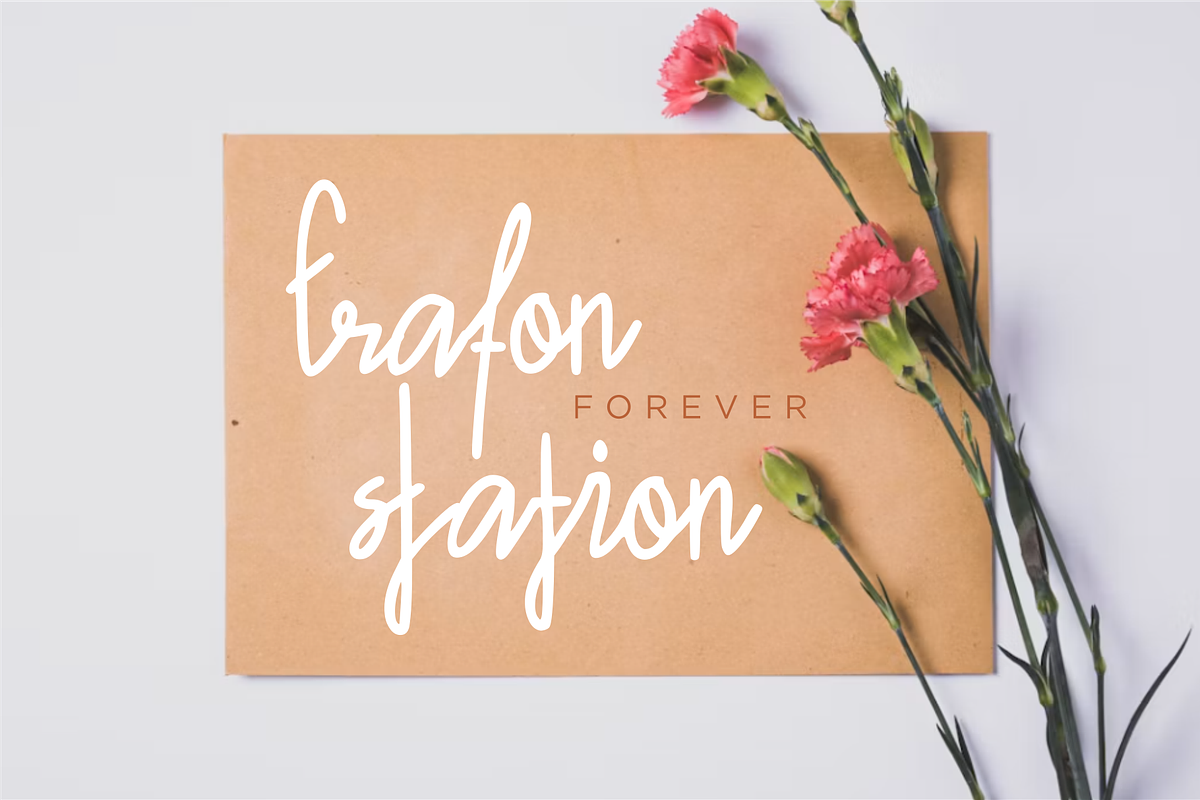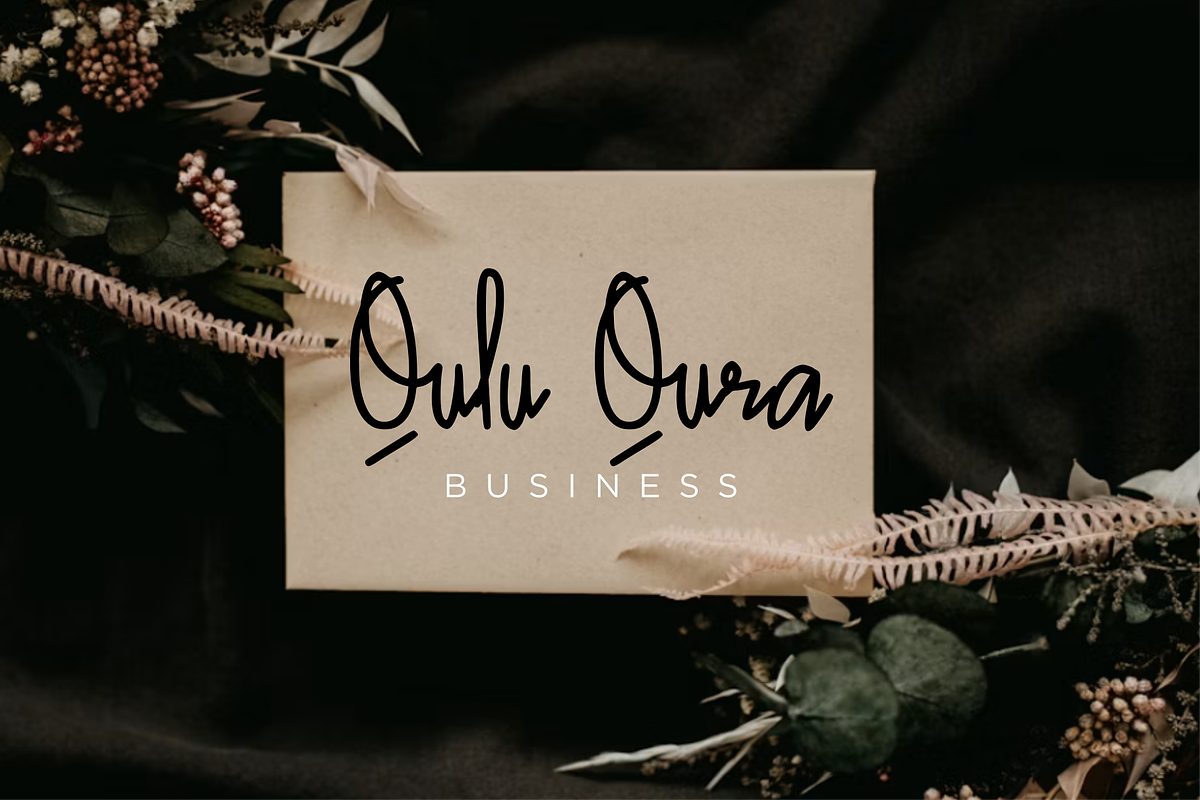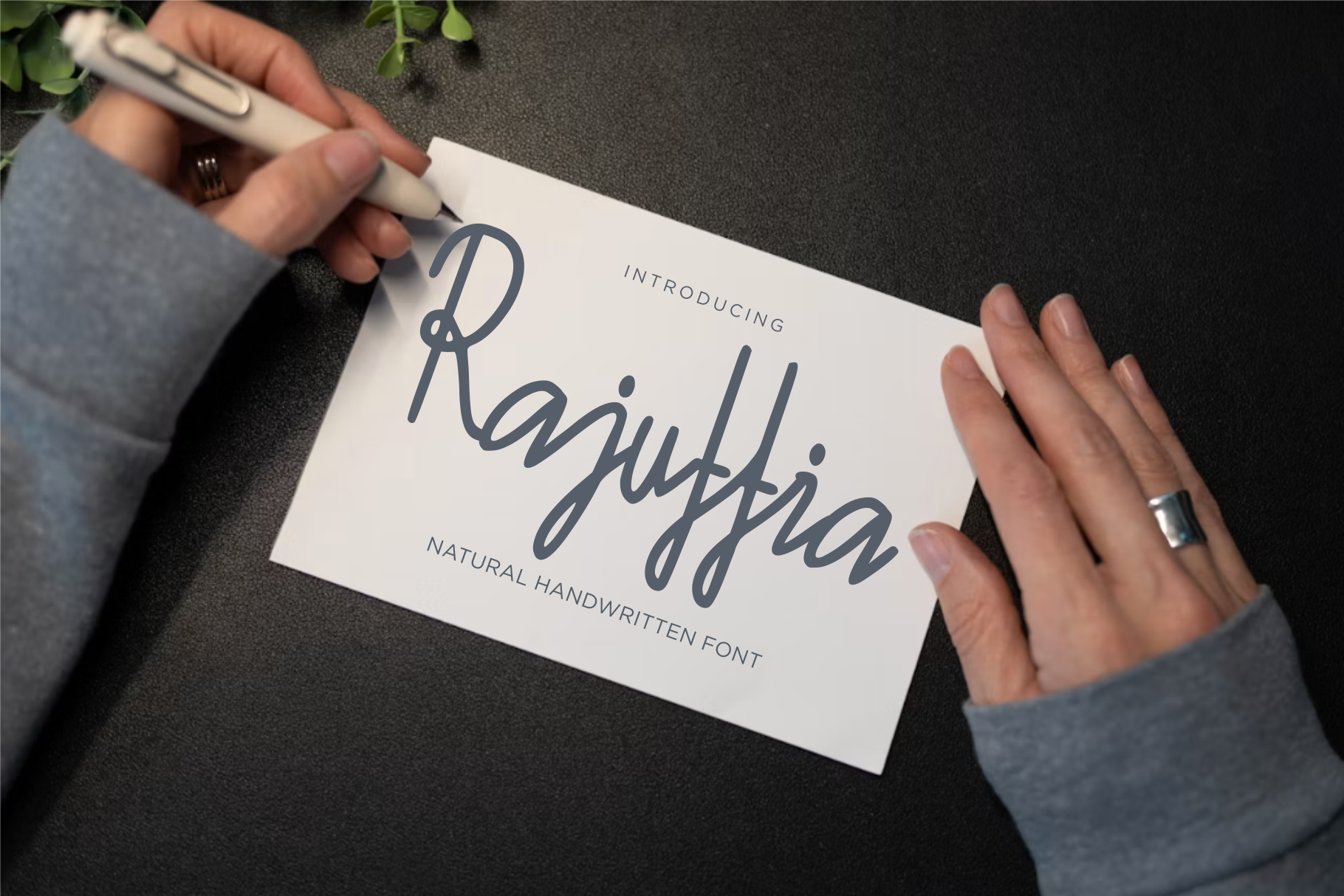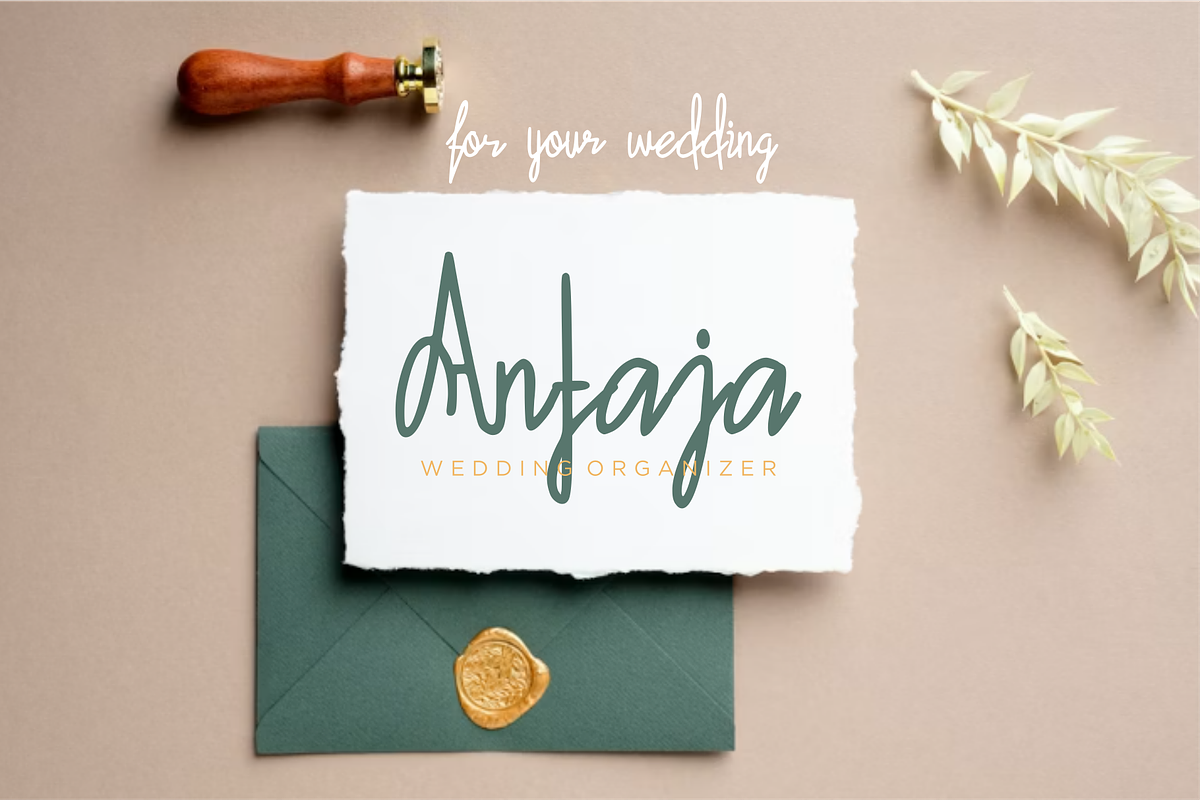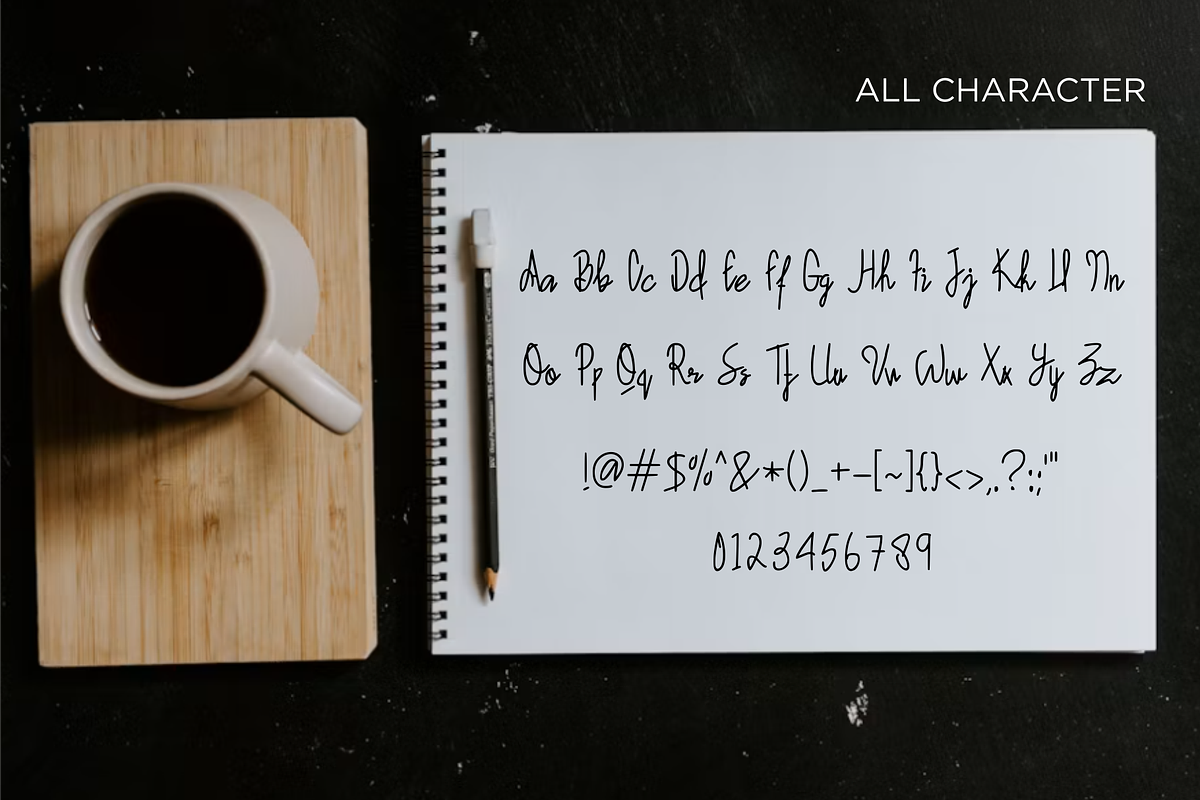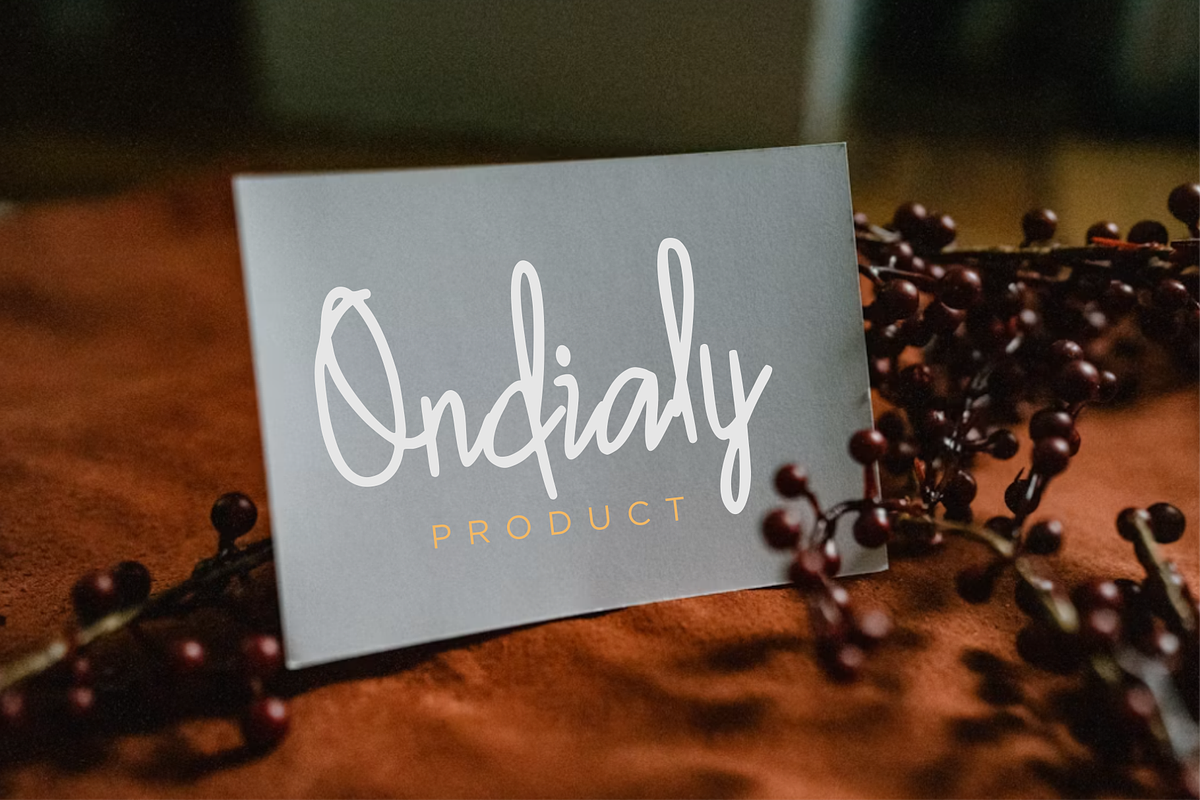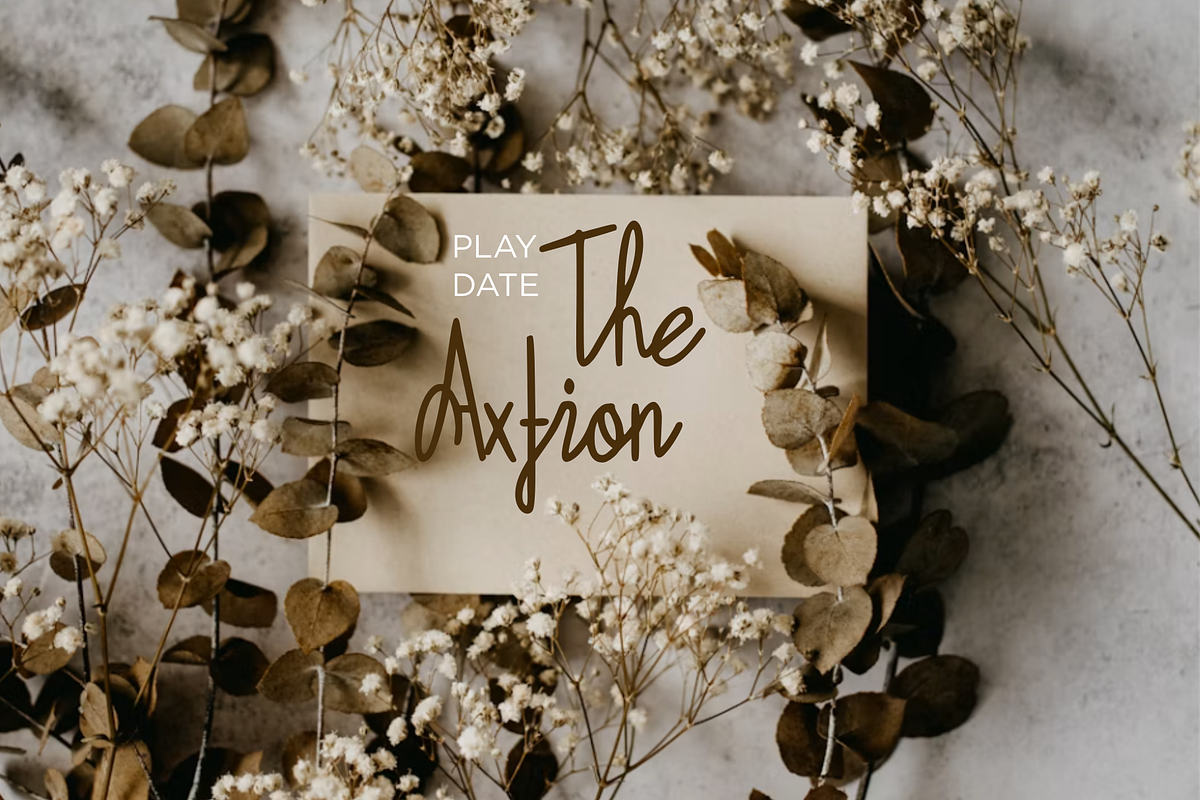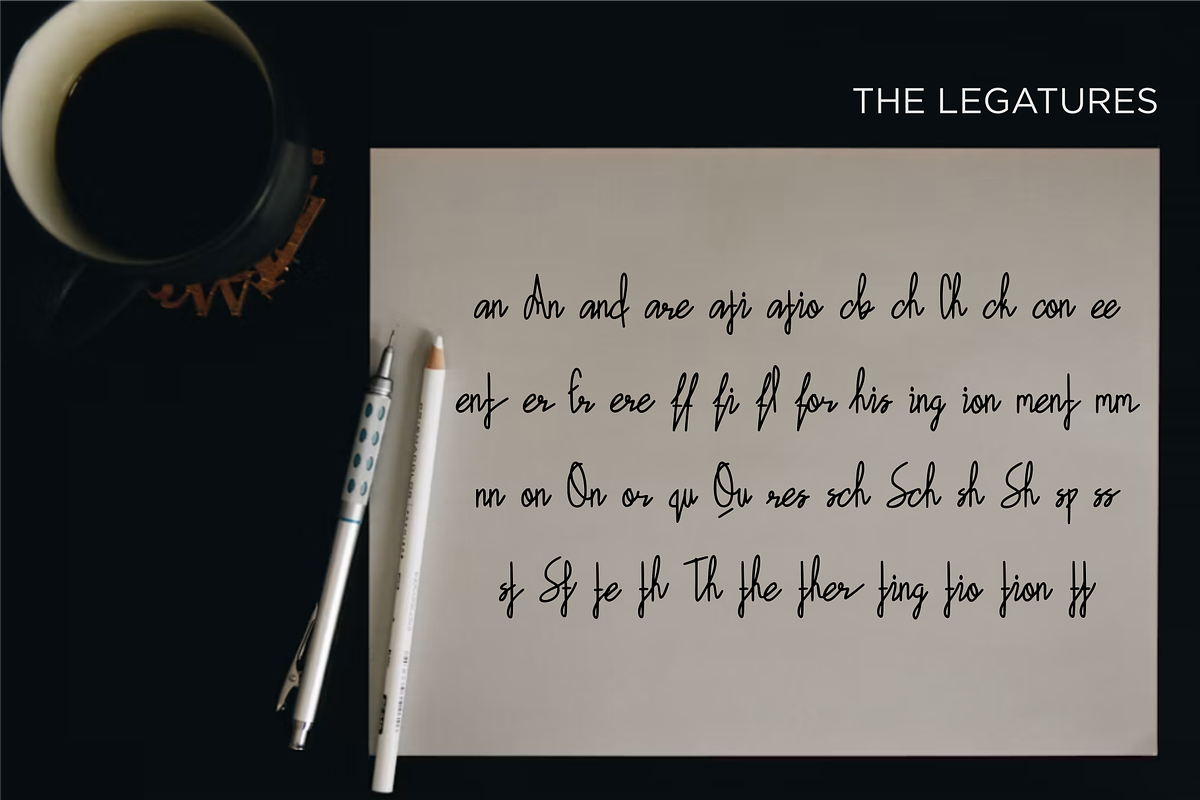
Rajuttia - Natural Handwritten Font
Rajuttia is a natural script font that captures the authentic, casual charm of real handwriting. Featuring smooth line weights and organic, flowing curves, this font adds an elegant and personal touch to any creative work, making it feel crafted by hand.
Authentic Handwritten Feel: Features loose, natural stroke flows for an effortless aesthetic.
Warm & Personal Character: Adds a friendly, intimate, and aesthetic tone to your design projects.
High Legibility: Designed to maintain clear structure and readability while preserving a script look.
Best Used For:
Wedding invitations, greeting cards, and event stationery
Brand identity, product packaging, and signatures
Social media graphics, quotes, and visual content
Merchandising such as apparel, mugs, and custom goods